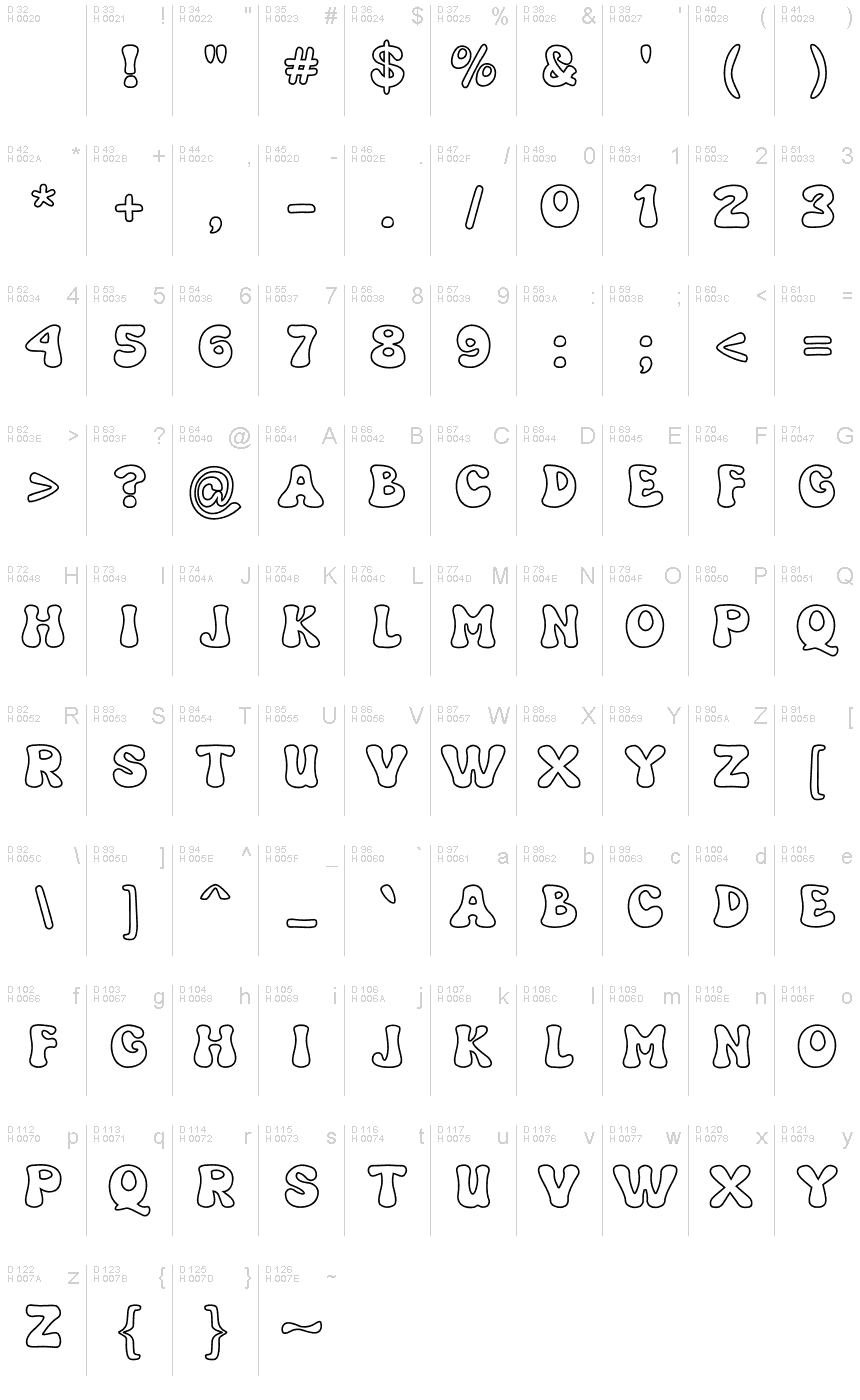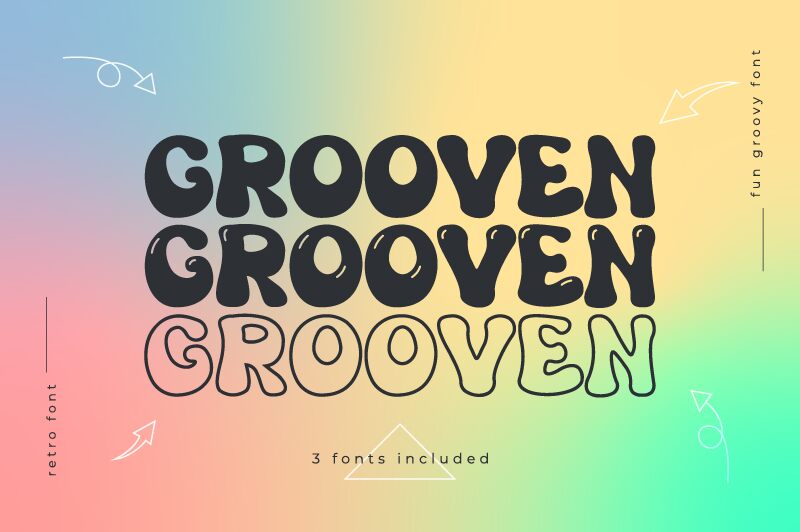
Grooven Outline
Grooven Outline is a groovy display font designed by Salamahtype.com. With its extra-bold weight and unique outline style, this font is perfect for projects that need a retro, funky feel. Use it for posters, album covers, or even branding materials to give your designs a fun and energetic vibe. The Grooven family also includes other weights and styles, so you can mix and match to create the perfect look for your project. Get ready to groove with Grooven Outline!